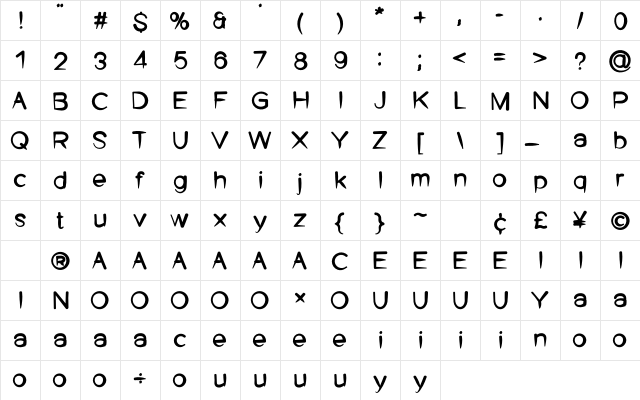
ST Hanekam Ink
Design Context for ST Hanekam Typeface
ST Hanekam offers clean, dependable letterforms without strong stylistic allegiance, making it a practical choice for designers who need flexibility.
Pro Tip: Pair ST Hanekam with a font of contrasting weight or personality to build a more expressive typographic hierarchy.